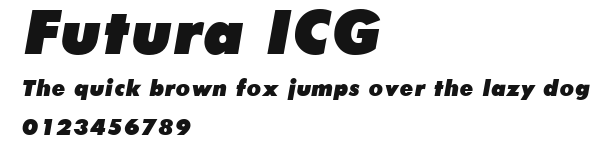
• Font Name: Futura ICG
• Font Style: XBold Oblique
• Full Font Name: Futura ICG XBold Oblique
Futura ICG.ttf is a modern, elegant sans-serif font designed for ultimate readability and visual harmony. Perfect for branding, headlines, web design, and print materials.